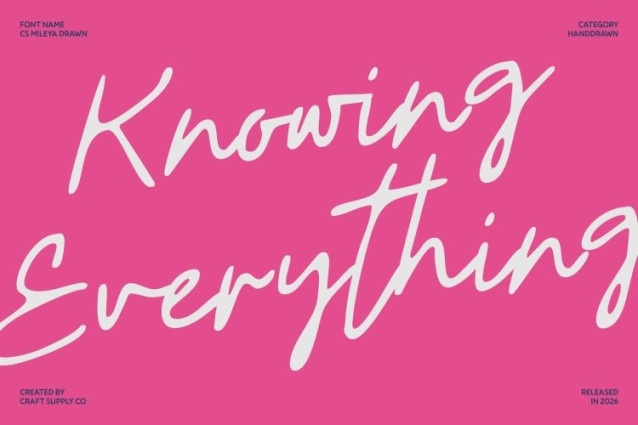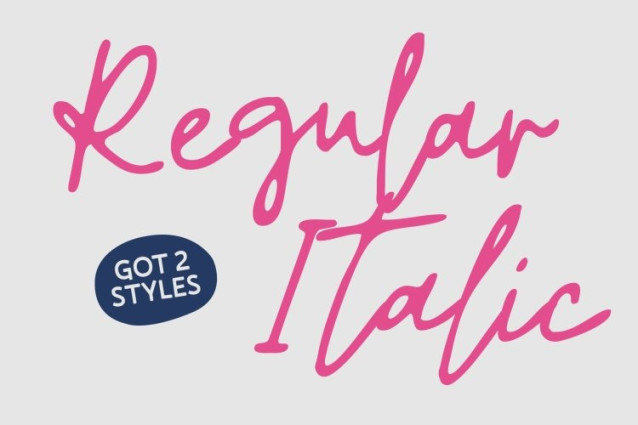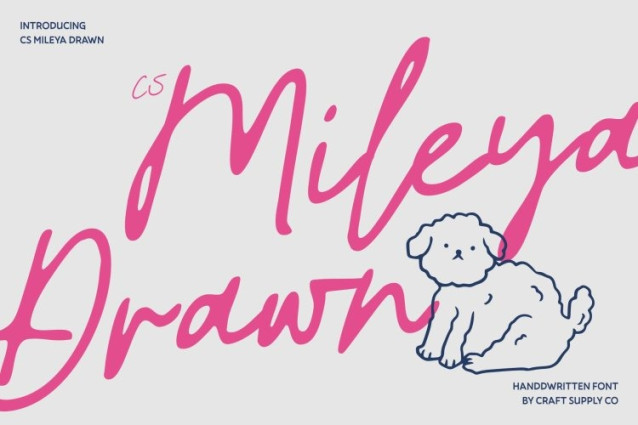
CS Mileya Drawn Font
CS Mileya Drawn Font – This is a stylish script font defined by its beautifully flowing strokes and elegant curves. Its modern rhythm brings every letter to life with smooth, luxurious movement, giving text a refined and effortlessly sophisticated presence. Perfect for romantic designs or high-end visuals, this font elevates your message with graceful charm.
Graceful Curves That Transform Every Design
Featuring fluid lines and subtle calligraphic nuances, turns ordinary text into a captivating visual experience. Gentle bends and sweeping connections lend each word a sense of exclusivity and elegance, while maintaining excellent readability. This refined script is ideal for designs that demand both artistry and sophistication.
Perfect for Weddings, Fashion, and Luxury Media
Designed for premium creative projects, this font shines in wedding invitations that feel timeless and heartfelt, fashion branding that exudes contemporary beauty, and luxury editorials that need a polished script presence. Its upscale style harmonizes effortlessly with minimalist layouts, soft color palettes, and elegant branding concepts.
Versatile, Chic, and Impeccably Crafted
Despite its delicate and graceful appearance, this font is versatile across both digital and print applications. It adapts beautifully to logos, packaging, magazine spreads, social content, and more. Whenever you need a script font that embodies romance, sophistication, and modern refinement, delivers with designer-worthy elegance.